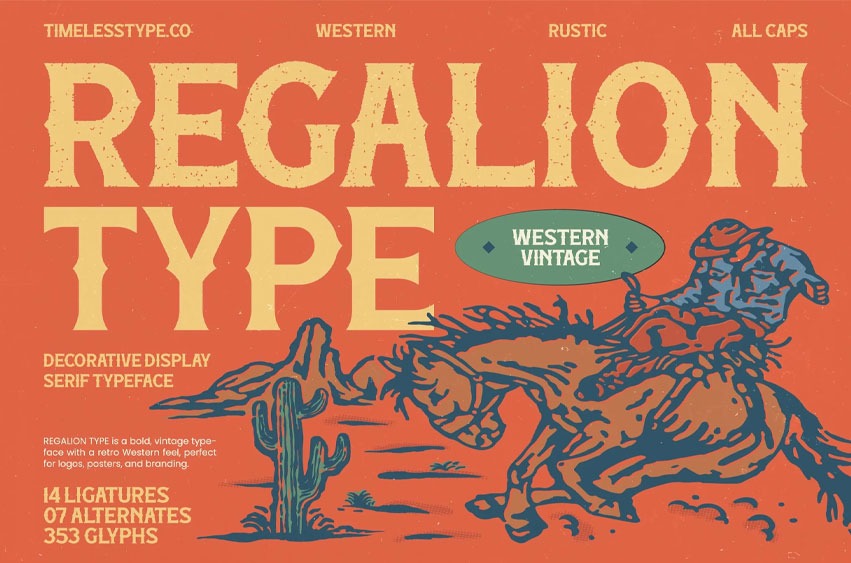
Regalion Type Font
Regalion Type Font is a bold western decorative serif packed with rugged character and retro grit. Its all-caps structure, textured edges, and vintage cowboy aesthetic make it perfect for posters, country-themed branding, rodeo logos, rustic packaging, signage, and any project that needs that loud, dusty, old-west punch.
With 14 ligatures, 7 alternates, and 353 glyphs, this font brings authentic Western energy with modern usability—ideal for designers who want a strong, standout typeface with classic frontier vibes.